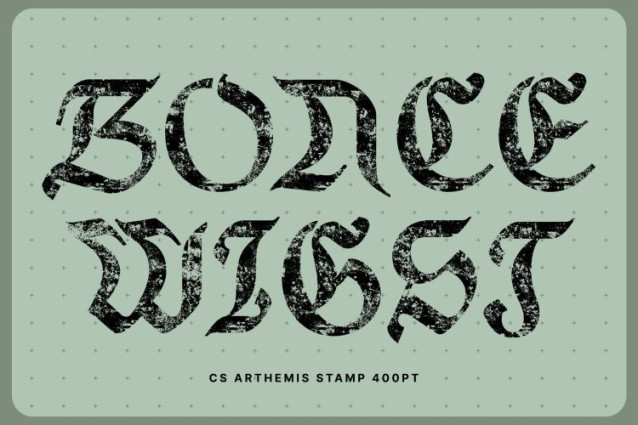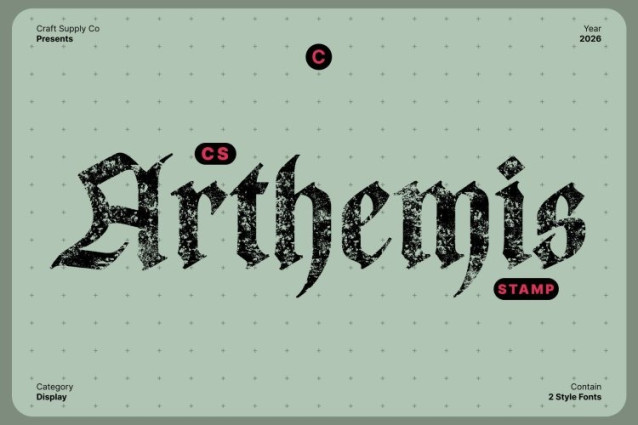
CS Arthemis Stamp Font
CS Arthemis Stamp Font This is a medieval Blackletter display serif font that blends intricate gothic letterforms with a powerful historical presence. Inspired by classic manuscript typography, its sharp strokes, dramatic angles, and ornate details create a bold visual identity rooted in tradition, authority, and timeless grandeur.
Ornate Gothic Forms with Classic Appeal
The font features richly detailed letterforms that deliver strong visual drama and classic elegance. Its elaborate blackletter construction evokes the spirit of medieval craftsmanship, making it ideal for luxury branding, formal invitations, ceremonial designs, and themed visuals that demand a distinguished and authoritative tone.
Stamp Texture with Vintage, Aged Character
The stamp effect introduces a rugged, vintage texture that gives this font an authentic old-world feel. Subtle roughness, ink irregularities, and worn edges add artistic depth, making the font feel handcrafted, historic, and organically aged. This texture enhances its gothic personality while reinforcing a sense of heritage and authenticity.
Perfect for Formal, Gothic, and Themed Designs
This font excels in high-end branding, exclusive events, posters, album artwork, packaging, and historical or gothic-themed projects. Its combination of dramatic blackletter style and vintage stamp texture ensures every design stands out with powerful character, artistic richness, and timeless medieval elegance.